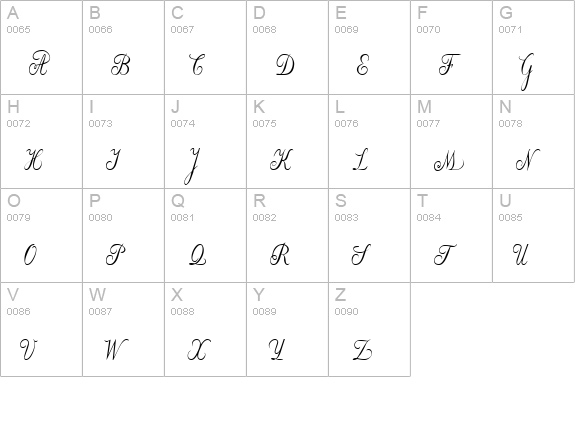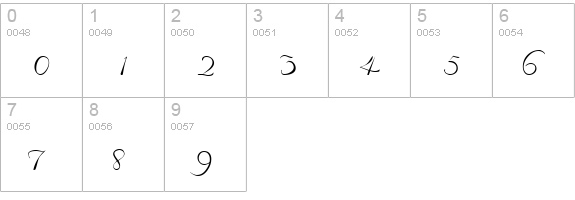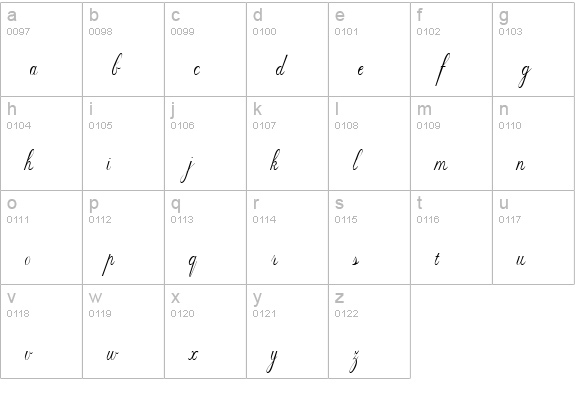
Willegha (Unregistered) Font Details
Introducing Willegha (Unregistered) font, a stunning typeface that effortlessly captures the essence of modern elegance. This versatile font is the perfect choice for those seeking a touch of sophistication in their designs. With its sleek and stylish letterforms, Willegha (Unregistered) creates a sense of timeless beauty that will elevate any project to new heights. What sets Willegha (Unregistered) apart is not only its impeccable design, but also its accessibility. This font is available for free download at FontsMarket.com, making it easily accessible to designers, students, and creatives alike. Whether you're working on a personal project or a professional endeavor, Willegha (Unregistered) ensures that quality typography is within reach for everyone. With its extensive character set, Willegha (Unregistered) offers a wide range of possibilities, allowing you to truly express your creativity. From captivating headlines to elegant branding, this font effortlessly adapts to any context, adding a touch of refinement to your work. The clean lines and balanced proportions of Willegha (Unregistered) make it a versatile choice for both print and digital designs. Its legibility and clarity ensure that your message is delivered with utmost precision, while its subtle curves and delicate details add a touch of artistry to your compositions. Whether you're designing a logo, crafting a magazine layout, or creating a wedding invitation, Willegha (Unregistered) will lend a touch of sophistication to your project. Its timeless appeal and effortless elegance will captivate your audience and leave a lasting impression. Experience the beauty and versatility of Willegha (Unregistered) font, available for free download exclusively at FontsMarket.com. Elevate your designs with this exquisite typeface, and let your creativity shine.